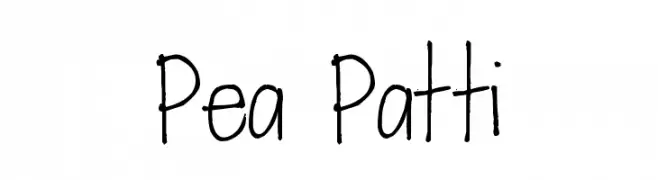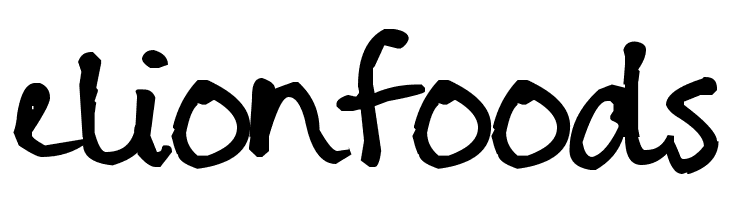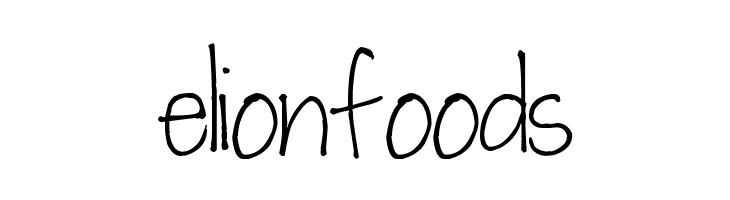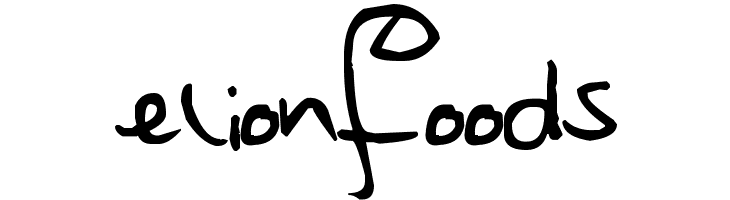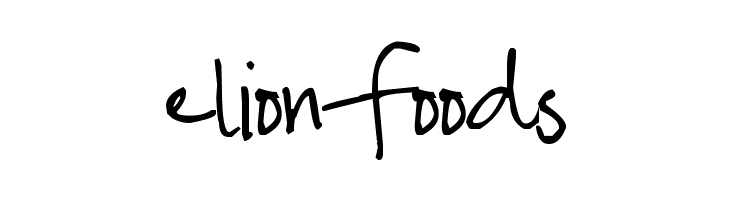
A playful, handwritten font with a casual and friendly style.
A playful, casual handwritten font with a dynamic and lively feel.
A playful, handwritten font with bold, free-flowing strokes.
A playful, casual handwritten font with uneven strokes and a friendly appearance.
A playful, casual handwritten font with irregular, whimsical strokes.
A playful, handwritten font with a casual and whimsical style.
A playful, casual handwritten font with smooth, flowing lines.
A playful, handwritten font with dynamic strokes and whimsical loops.
A whimsical handwritten font with lively, irregular strokes.